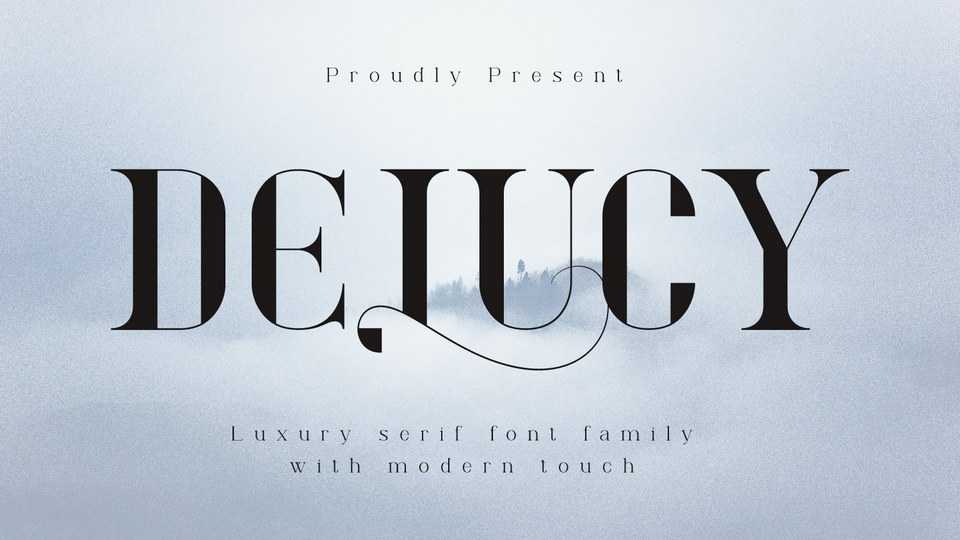
Download Delucy font, a high contrast serif font that is charming, sophisticated and luxurious. Delucy is a very versatile font for your design projects, both large and small.
Designer: Creative17studio